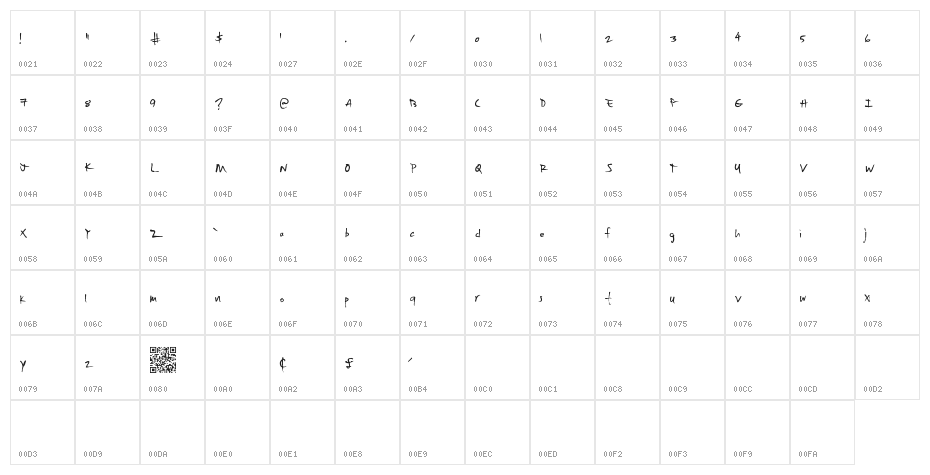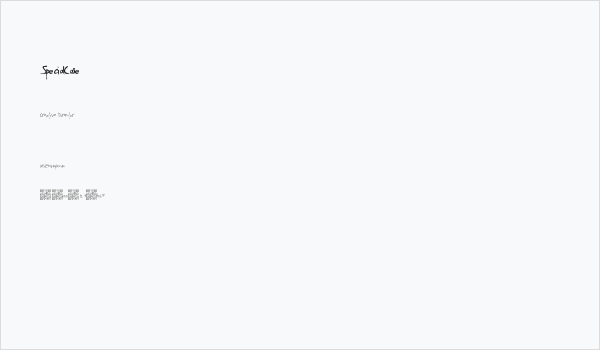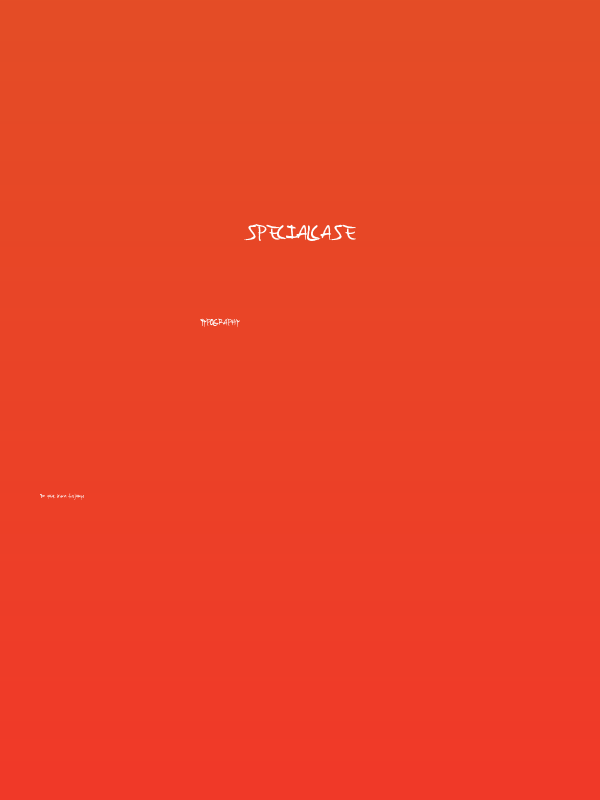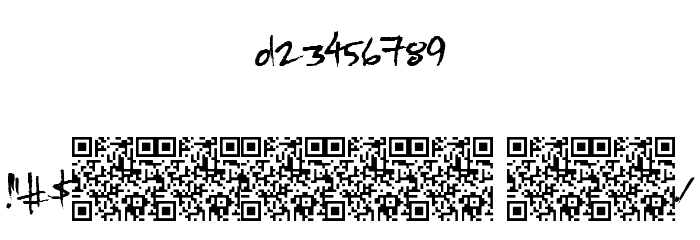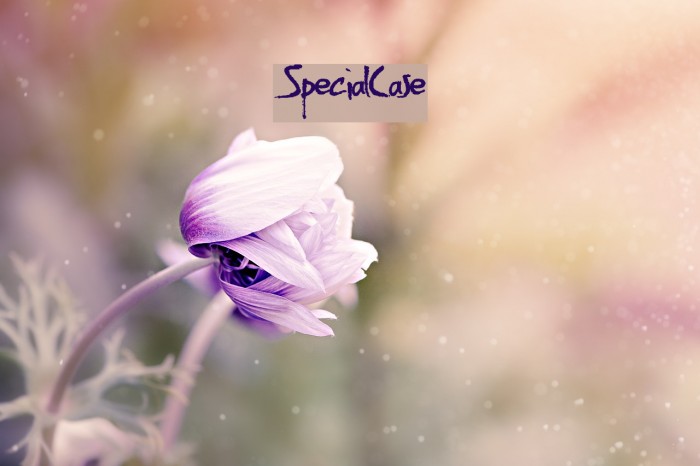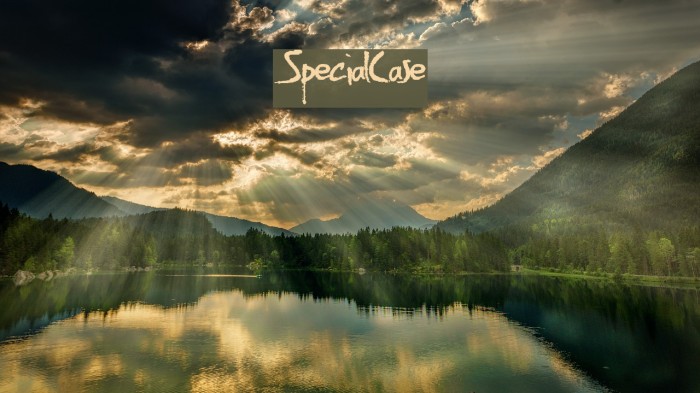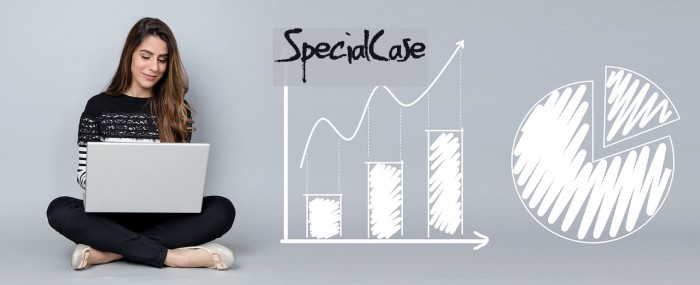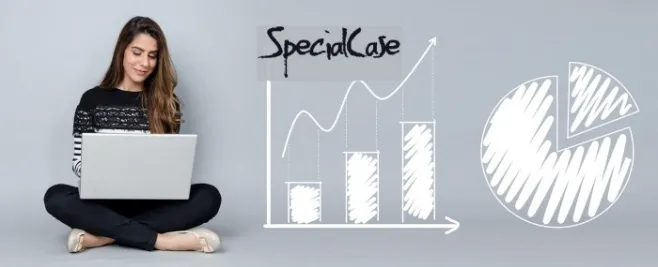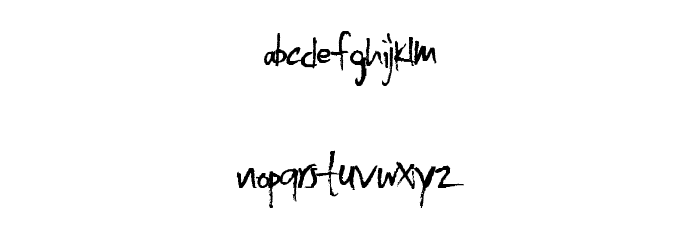
SpecialCase Font
SpecialCase Description
This font exhibits a unique, handwritten style with a slightly chaotic and artistic flair. The letters are irregular and have a playful, almost graffiti-like appearance, characterized by uneven strokes and varying thickness. The uppercase letters are bold and dynamic, while the lowercase letters maintain a consistent flow, adding to the font's overall whimsical nature. The numbers and special characters follow the same artistic style, ensuring a cohesive look across all elements. This font is perfect for projects that require a personal touch or an edgy, creative vibe.
SPECIALCASE UPPERCASE
SPECIALCASE LOWERCASE
SPECIALCASE OTHER CHARS
| Use Case | Logos, Posters, Creative projects |
| Proposed Projects | Ideal for creative projects such as posters, album covers, street art designs, or any work that benefits from a personal and artistic touch. |